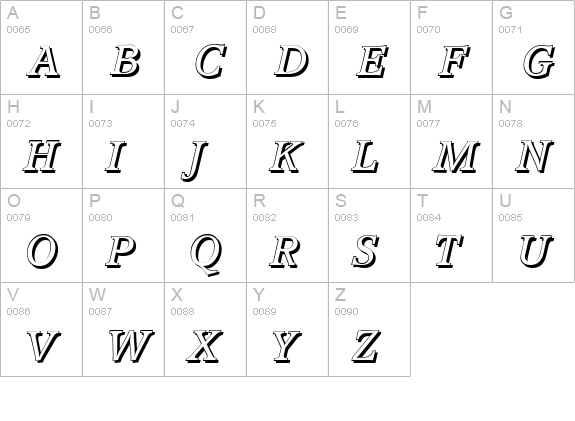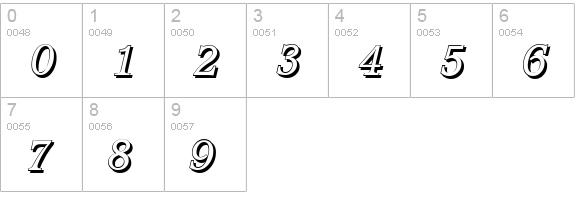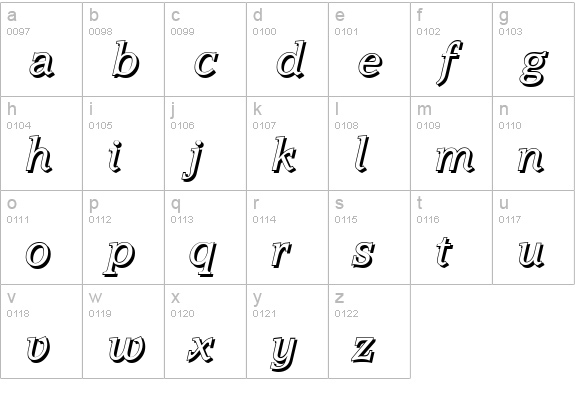
AccoladeShadow-Italic Font Details
AccoladeShadow-Italic is a distinctive, italic variant in the AccoladeShadow typeface family \xE2\x80\x94 well suited to design and typography projects.
AccoladeShadow-Italic font is a stylish and elegant typeface that exudes sophistication and charm. The italicized design adds a touch of flair and uniqueness to any project, making it perfect for adding a touch of class to your designs. The shadow effect gives the font a subtle depth and dimension, creating a visually appealing look. Best of all, AccoladeShadow-Italic font is available for free download at FontsMarket.com, making it easily accessible to all designers and creatives looking to elevate their projects with a touch of elegance. Whether you're working on a branding project, invitations, posters, or any other design, this font is sure to make a statement and leave a lasting impression. Download AccoladeShadow-Italic today and bring a touch of sophistication to your designs.